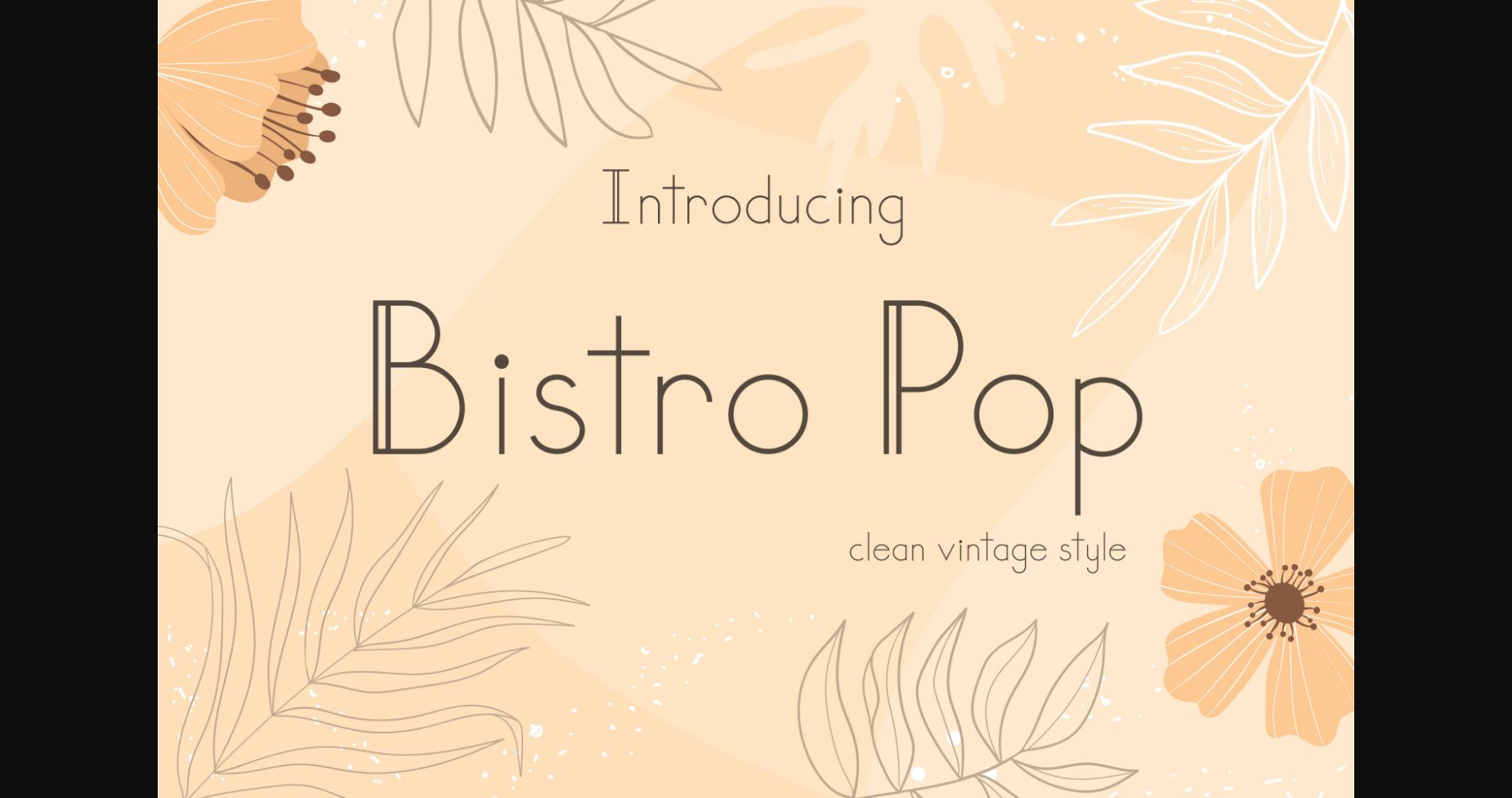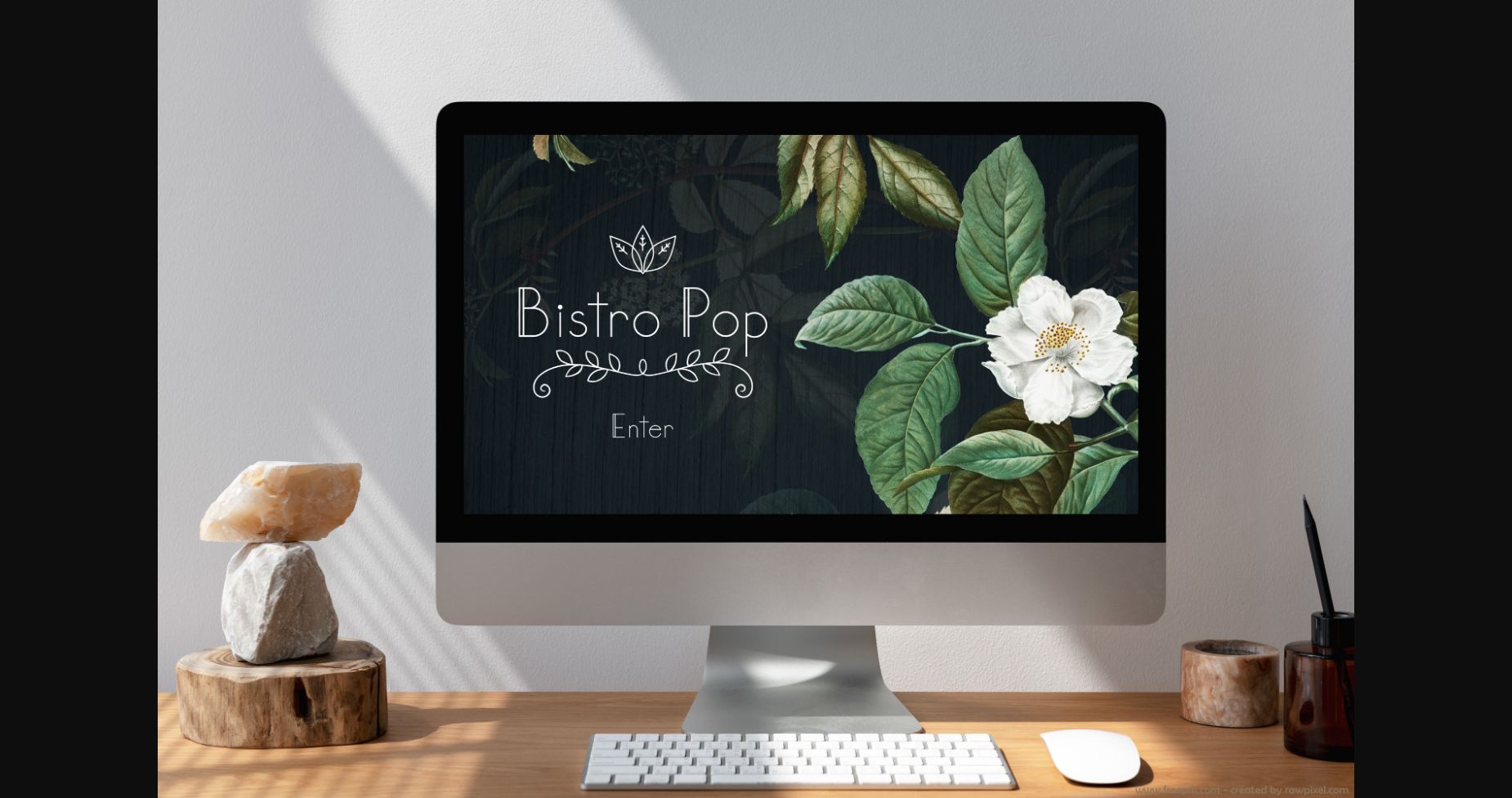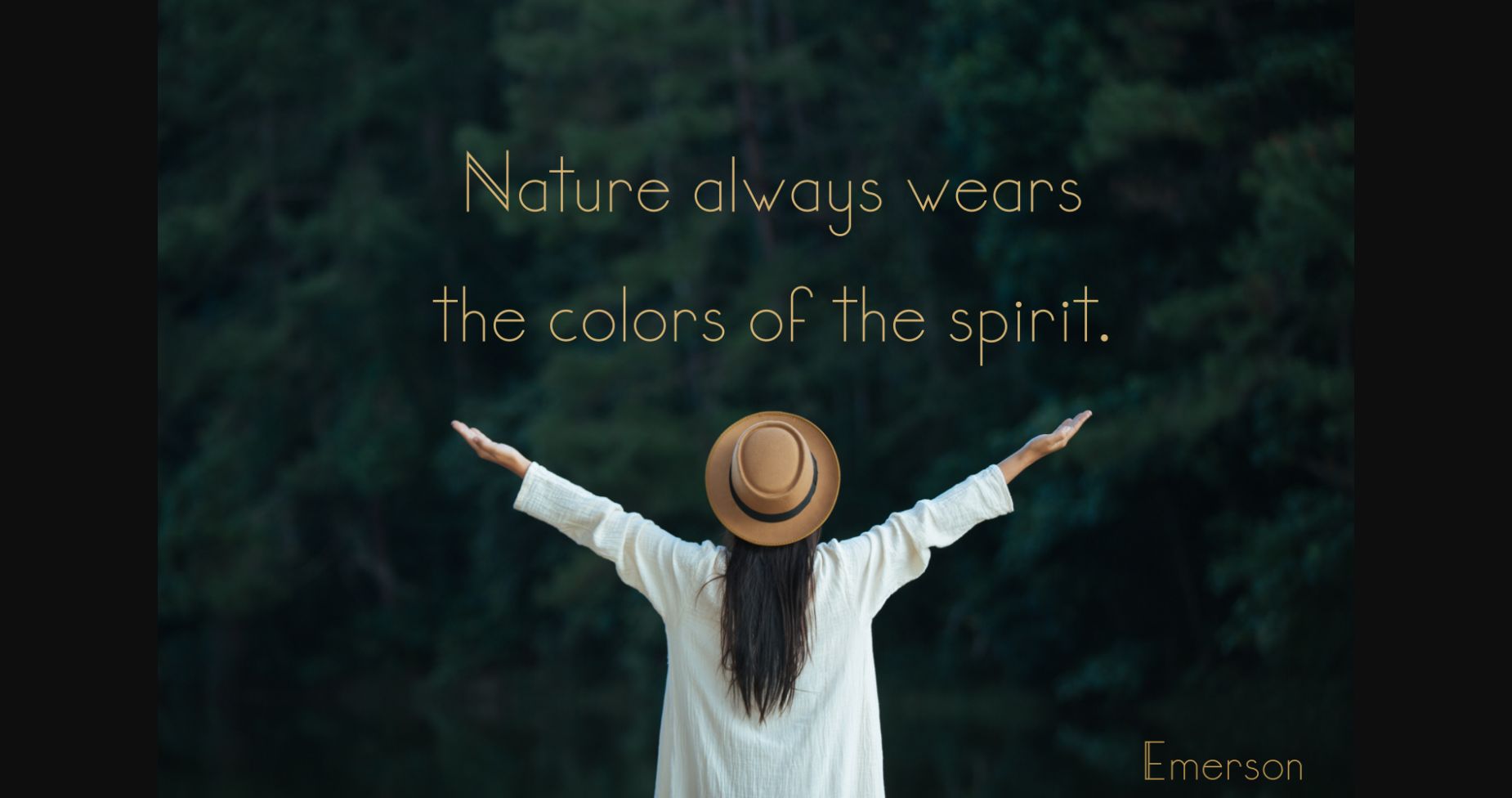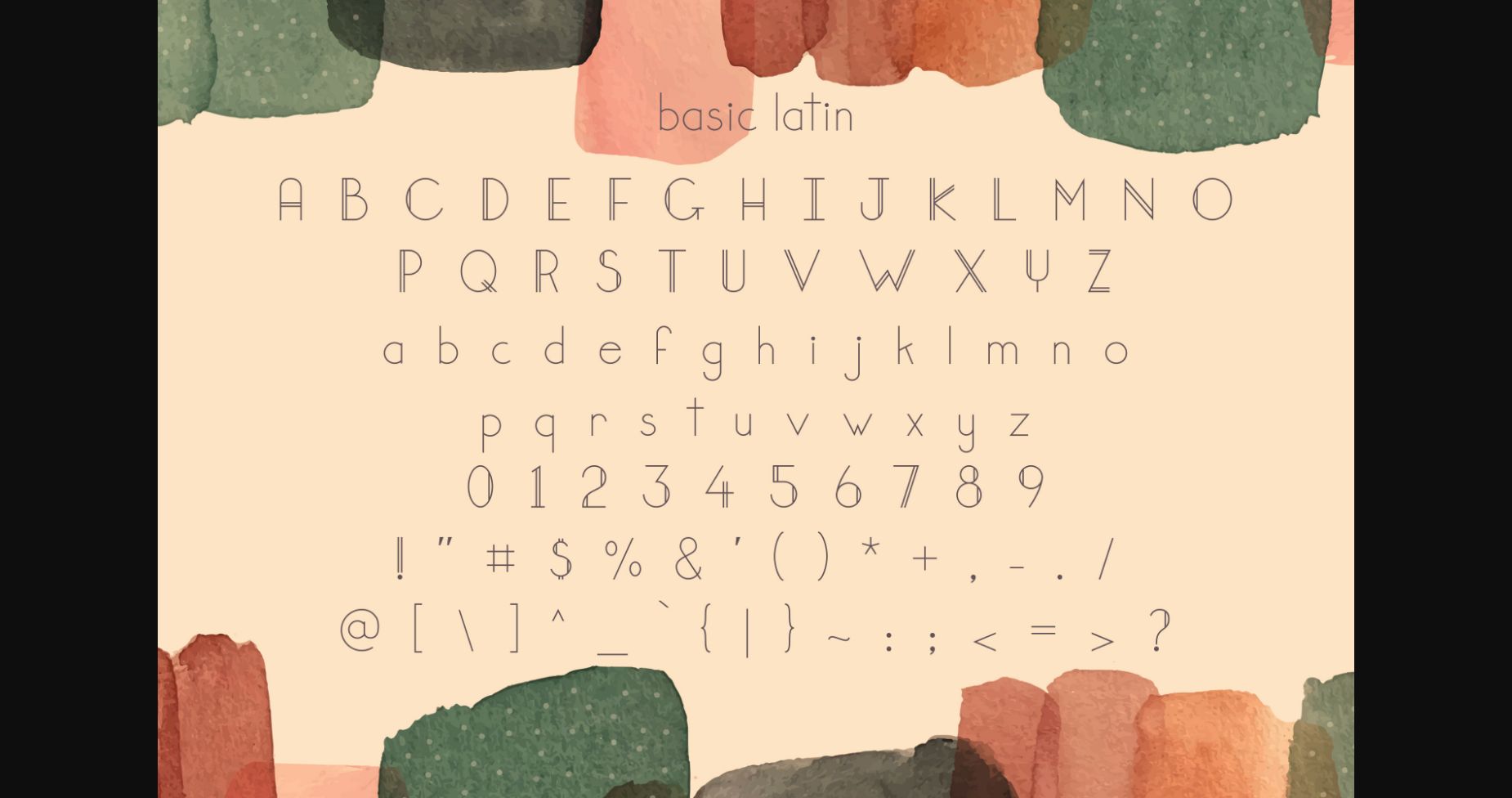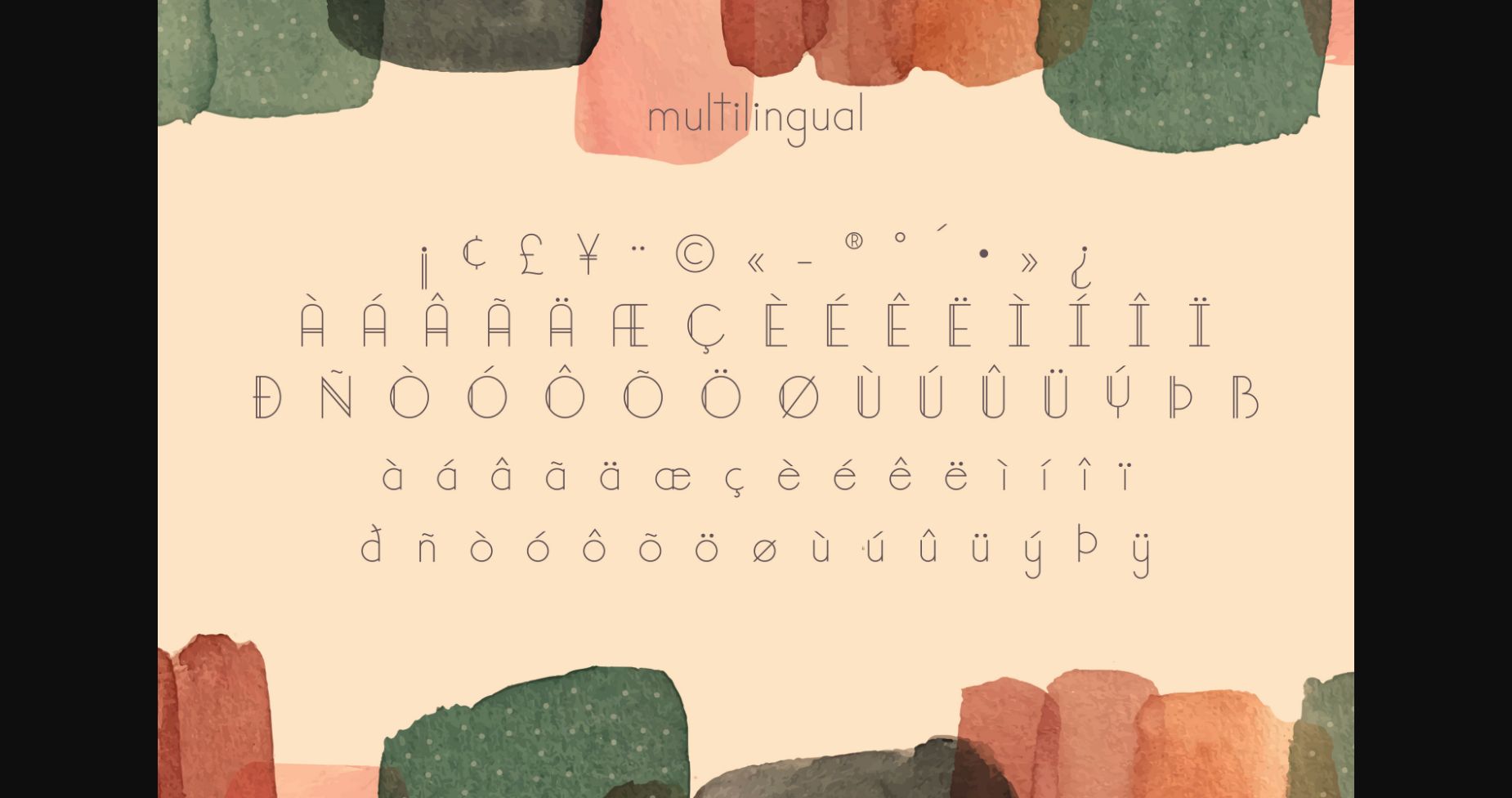
About Bistro Pop Font
Bistro Pop is a clean and modern looking display font. Add this minimalist and techno styled font to your web designs, logos or pretty much anything that requires a smart, cool touch.